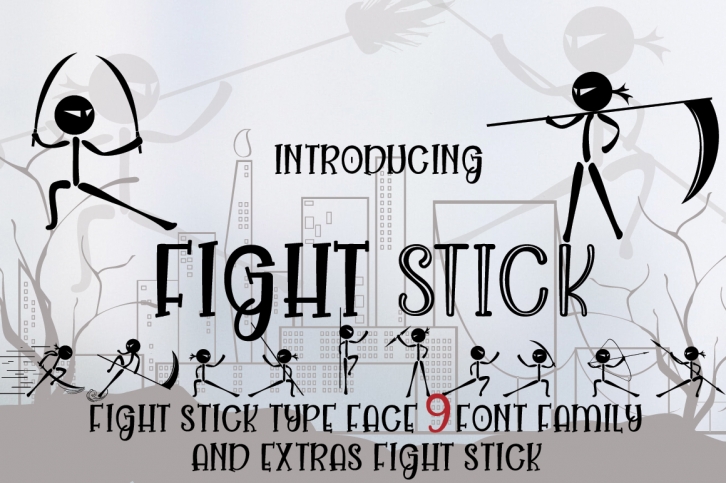
FIGHT STICK is a trendy and unique font with an authentic style. It was designed by baldam and it's a great choice for creative people who need such a font. It was released on September 8, 2019 and the file size is 6.57 MB. FIGHT STICK will add an organic vibe to any design idea!